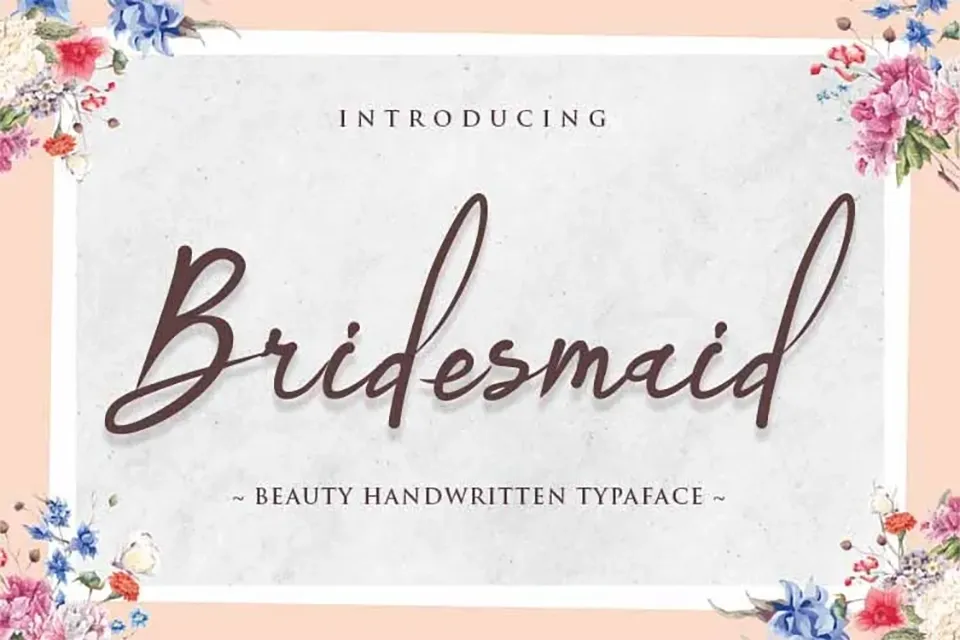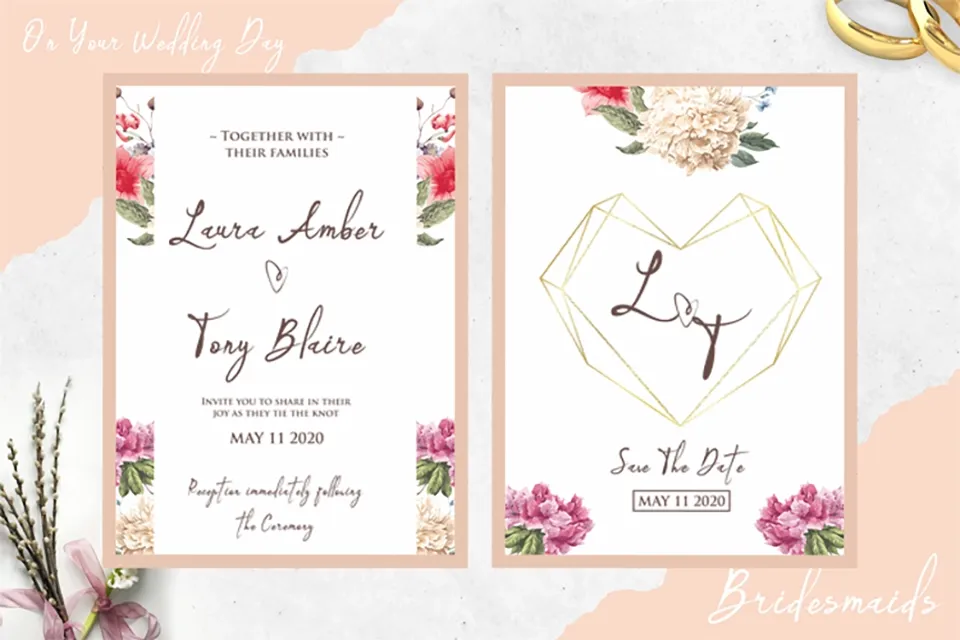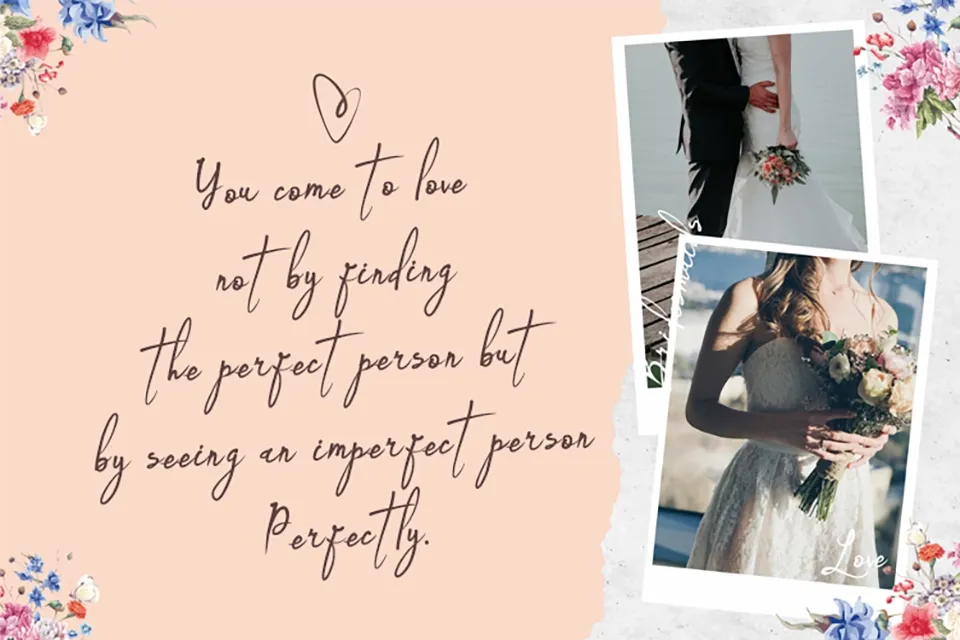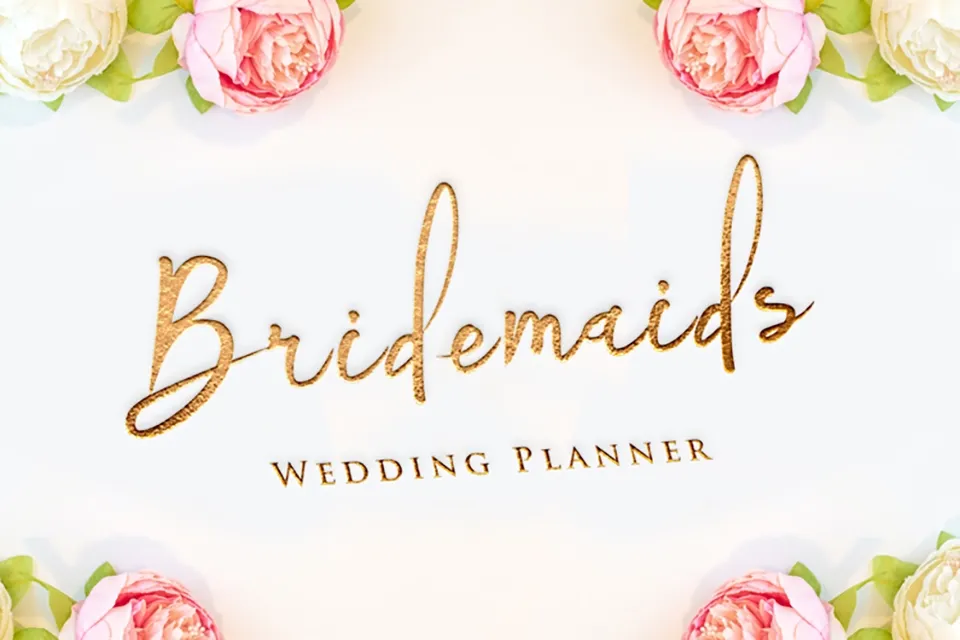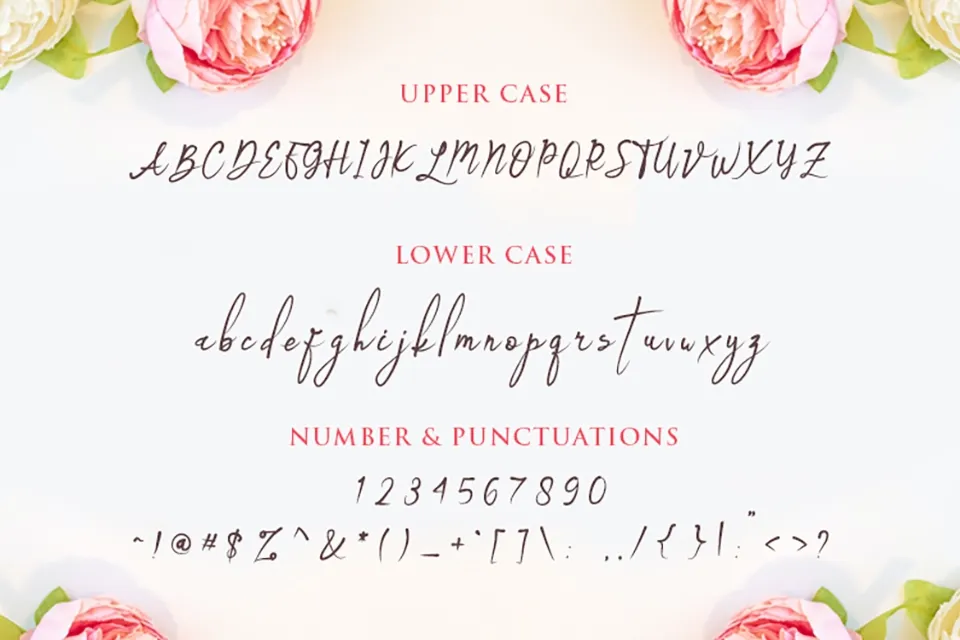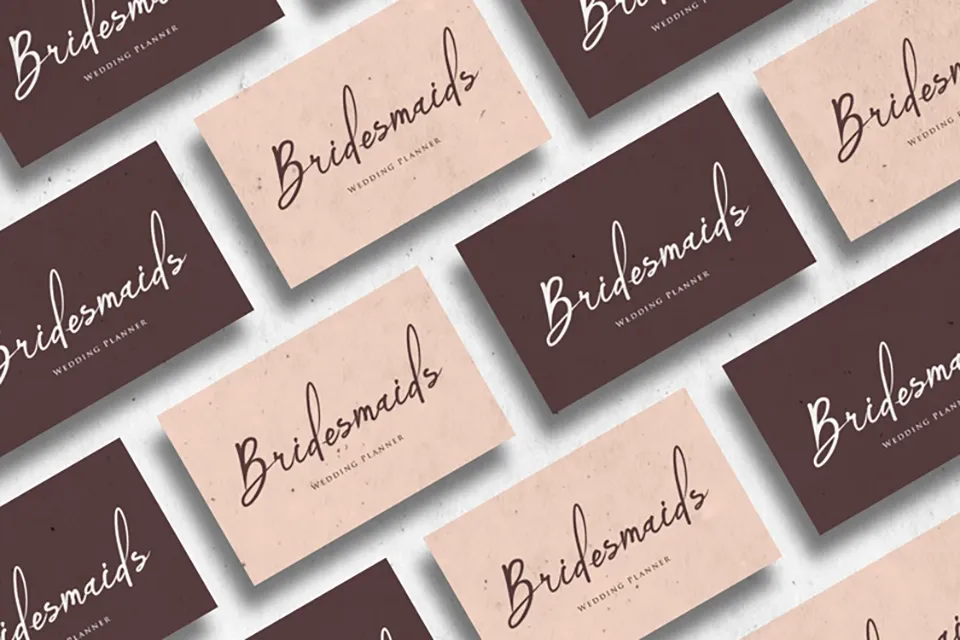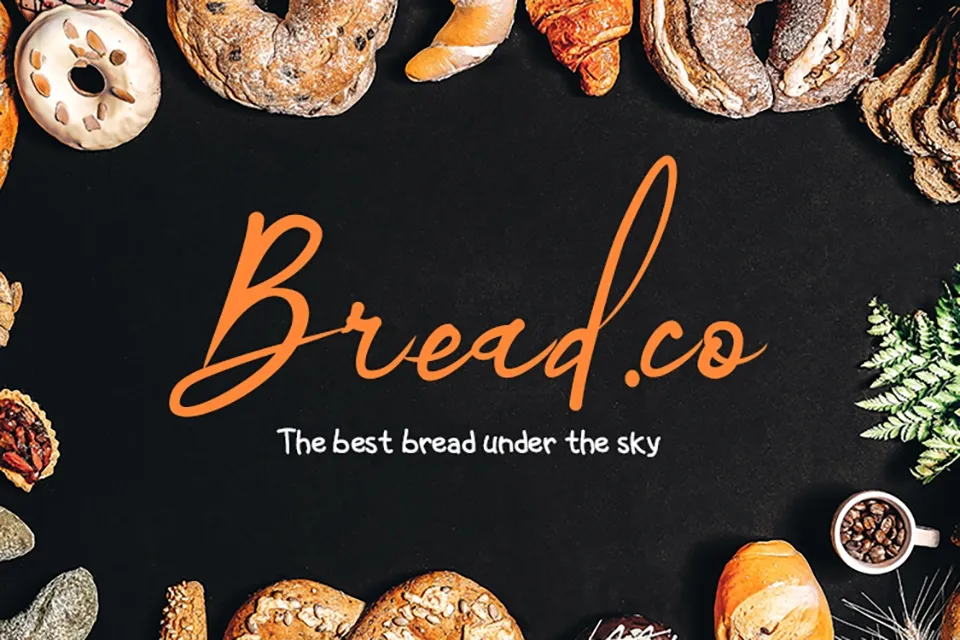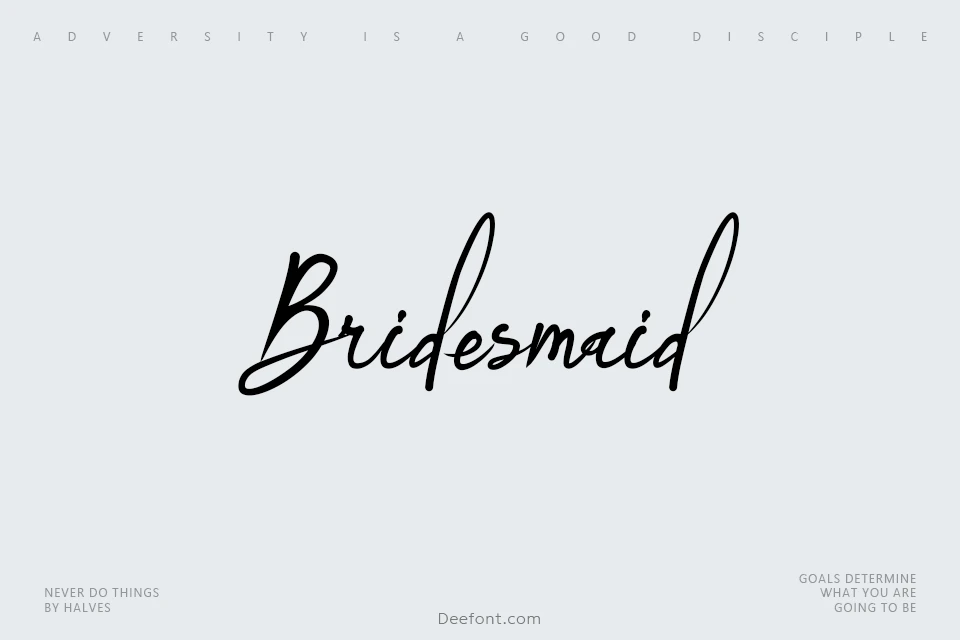
Bridesmaid Font
Bridesmaid Font is a beautiful handwritten typeface that radiates elegance and charm. With its flowing, delicate strokes and graceful letterforms, this font is perfect for creating designs that exude sophistication and warmth. Ideal for wedding invitations, greeting cards, branding, and social media graphics, Bridesmaid Font adds a personal and romantic touch to any project. Its handcrafted style balances simplicity with refinement, making it versatile for both formal and creative applications. Whether used for bold statements or subtle accents, Bridesmaid Font brings a sense of artistry and beauty to your designs. Elevate your creations with this captivating handwritten typeface!